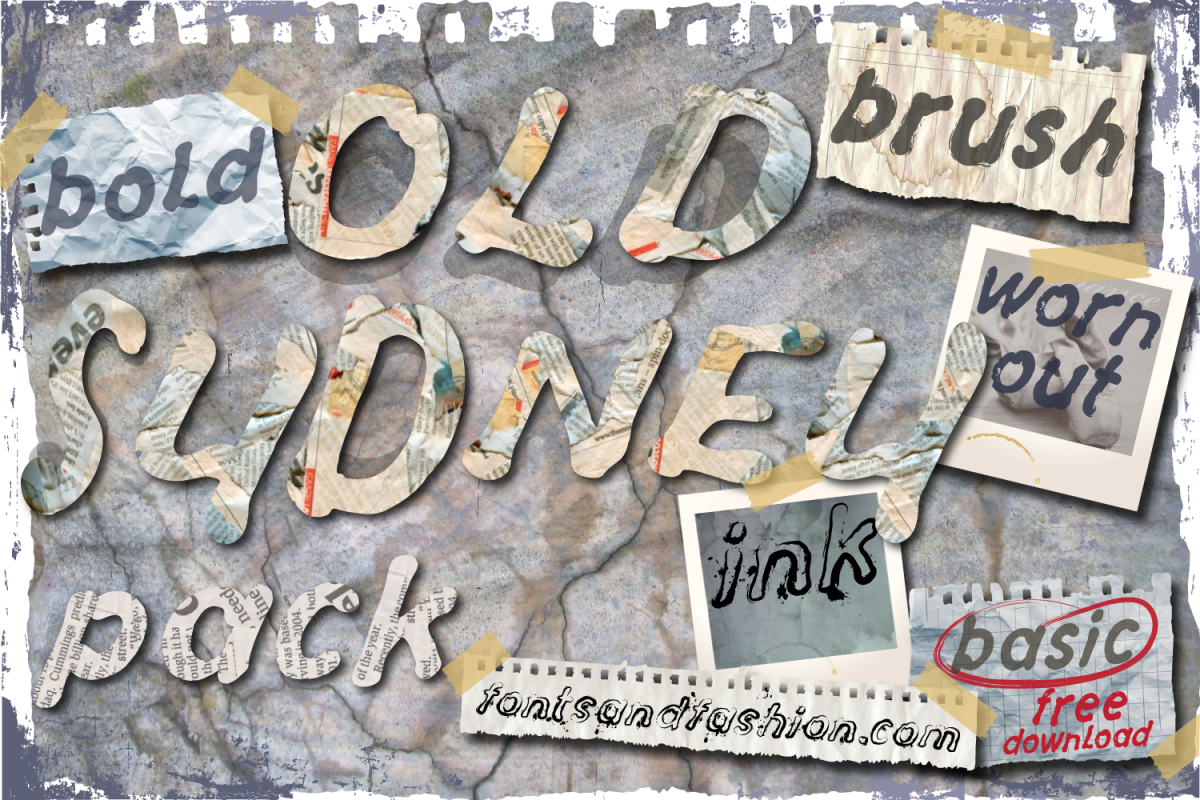
Old Sydney_Pack
“OLD SYDNEY_pack” is a font family includes five different fonts, each with its own personality, inspired by hand writing.
They can be linear and clean or grungy or dirty, but in any case, they are absolutely user-friendly and ecletic.
The source typeface is the “BASIC” version, it has been completely hand drawn with a soft felt pen to transmit a real expansion effect of the ink at each touch of the tip on the paper.
The result is a fluttering, irregular font, slightly inclined, with a good legibility and an a-little-bit-hasty appearance which is typical of handwritten notes. From this first type, other four alternative characters were created, with great appeal and personality. You can combine all kinds of fonts together in whatever way you want to create each time, different styles and fun solutions…you will enjoy playing with them , you can bet!
Find out all the fonts available in the “OLD SYDNEY_pack”:
• “OLD SYDNEY_bold”
• “OLD SYDNEY_brush”
• “OLD SYDNEY_ink”
• “OLD SYDNEY_worn out”.
The irregular, hand-lettered look adds an original “human touch” to your artwork…Give them a go